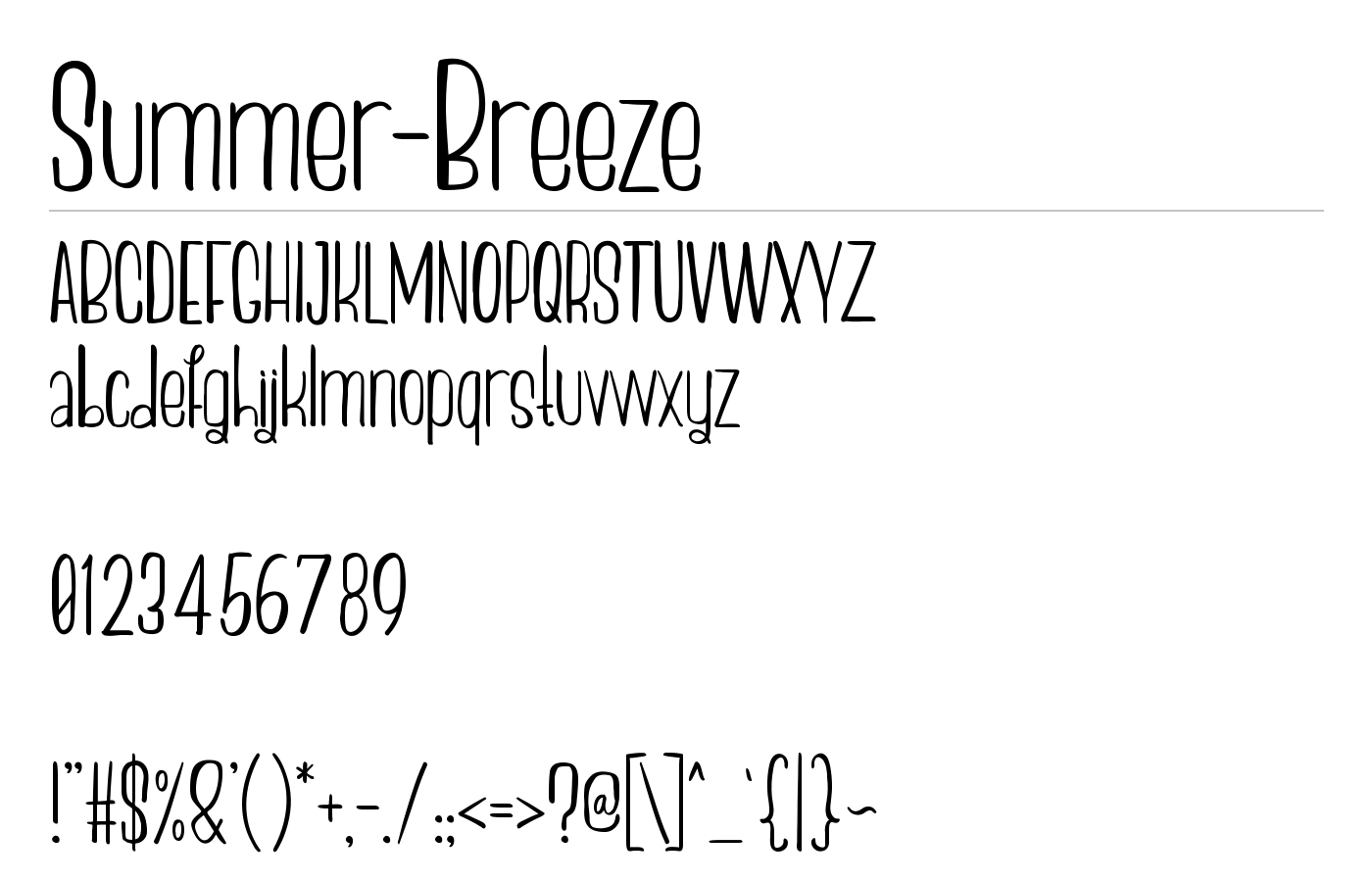
Summer Breeze is a charming, narrow sans serif font with a light weight and playful, hand-drawn feel. Its tall, slender letterforms and subtle curls add personality and warmth, making it perfect for casual, creative designs like invitations, branding, or headlines that want to evoke a friendly, approachable vibe. This font works best where a delicate, artistic touch is needed rather than heavy text blocks.
Summer Breeze Font
About Summer Breeze Font